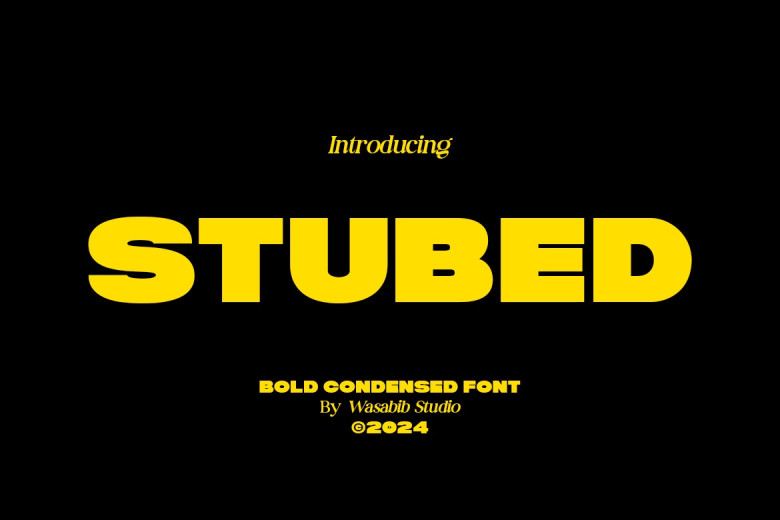
Stubed is a solid, cutting edge and active font amazing for logos. The strong and impactful design makes a great option to build a brand identity. It fits well for those who are aiming at an image that stands out from the competition, as one of strength, modernity and professionalism.
WS Stubed Sans Serif Font